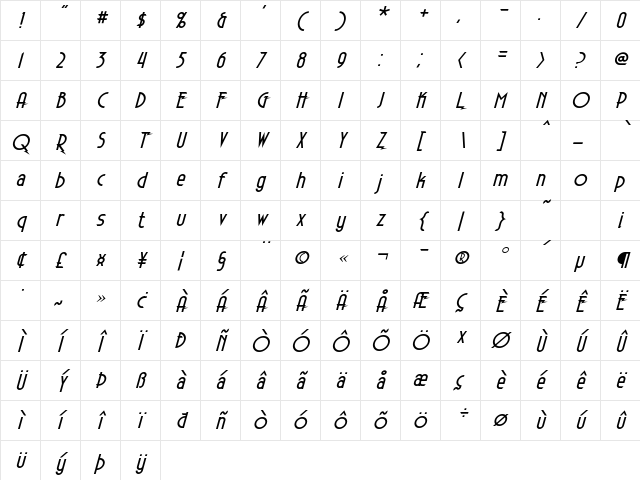
Electrorocket Italic
Foundry: Neale Davidson
Designer: Neale Davidson
Design Context for Electrorocket
Electrorocket is a composed and adaptable typeface that performs quietly and consistently across a wide range of design contexts. The slanted form adds forward momentum and visual energy.
Pro Tip: Use Electrorocket for emphasis, pull quotes, and subheadings where its slanted energy can add rhythm to the layout.